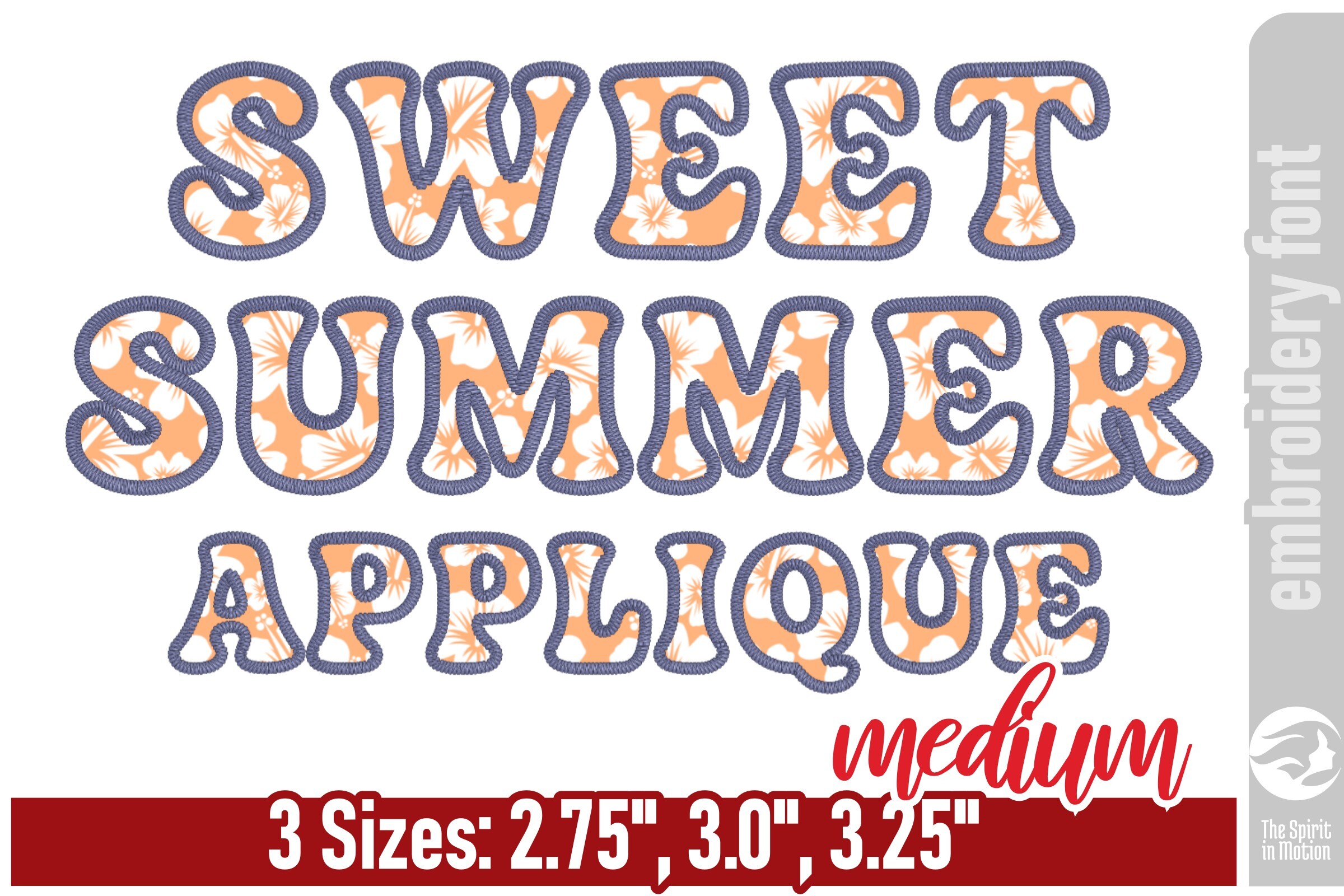
Sweet Summer Groovy Applique Font - M
Channel the ultimate 70's aesthetic with Sweet Summer Applique. This bold, retro typeface is designed for those who love to play with texture, allowing you to incorporate vibrant fabric patterns into its thick, rounded letterforms. With its smooth curves and heavy vintage weight, it transforms any piece of fabric into a tactile statement. It is the perfect choice for bold sweatshirts and retro-style home decor and apparel.